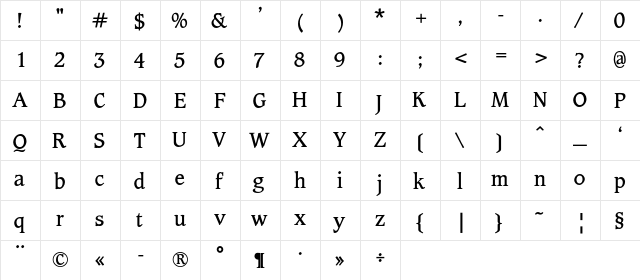
CotlinC Bold
Design Context for CotlinC Typeface
CotlinC takes a measured approach to typography — its balanced proportions and neutral character make it a reliable workhorse for both digital and print work. The heavy weight commands attention and anchors typographic hierarchies.